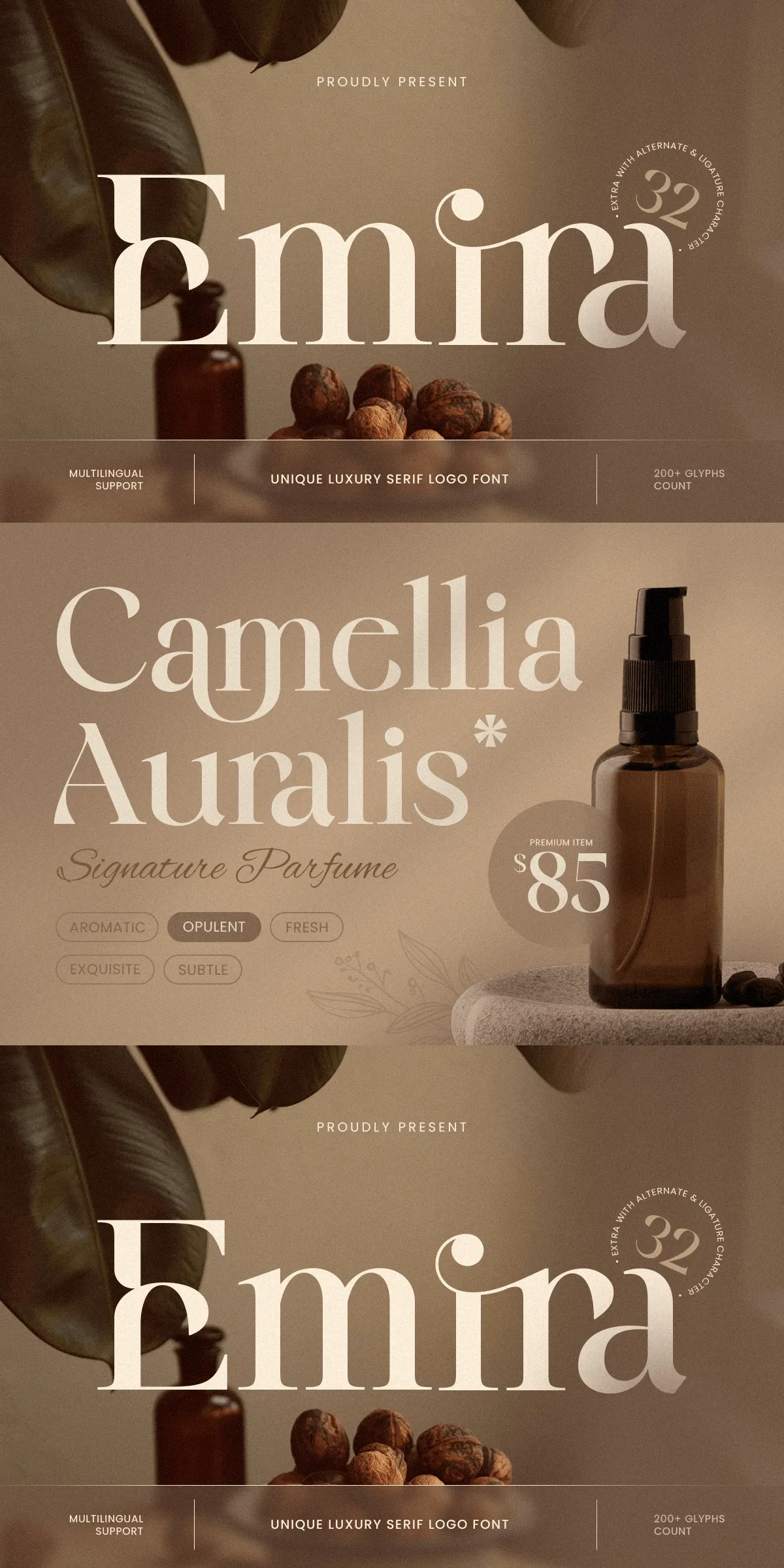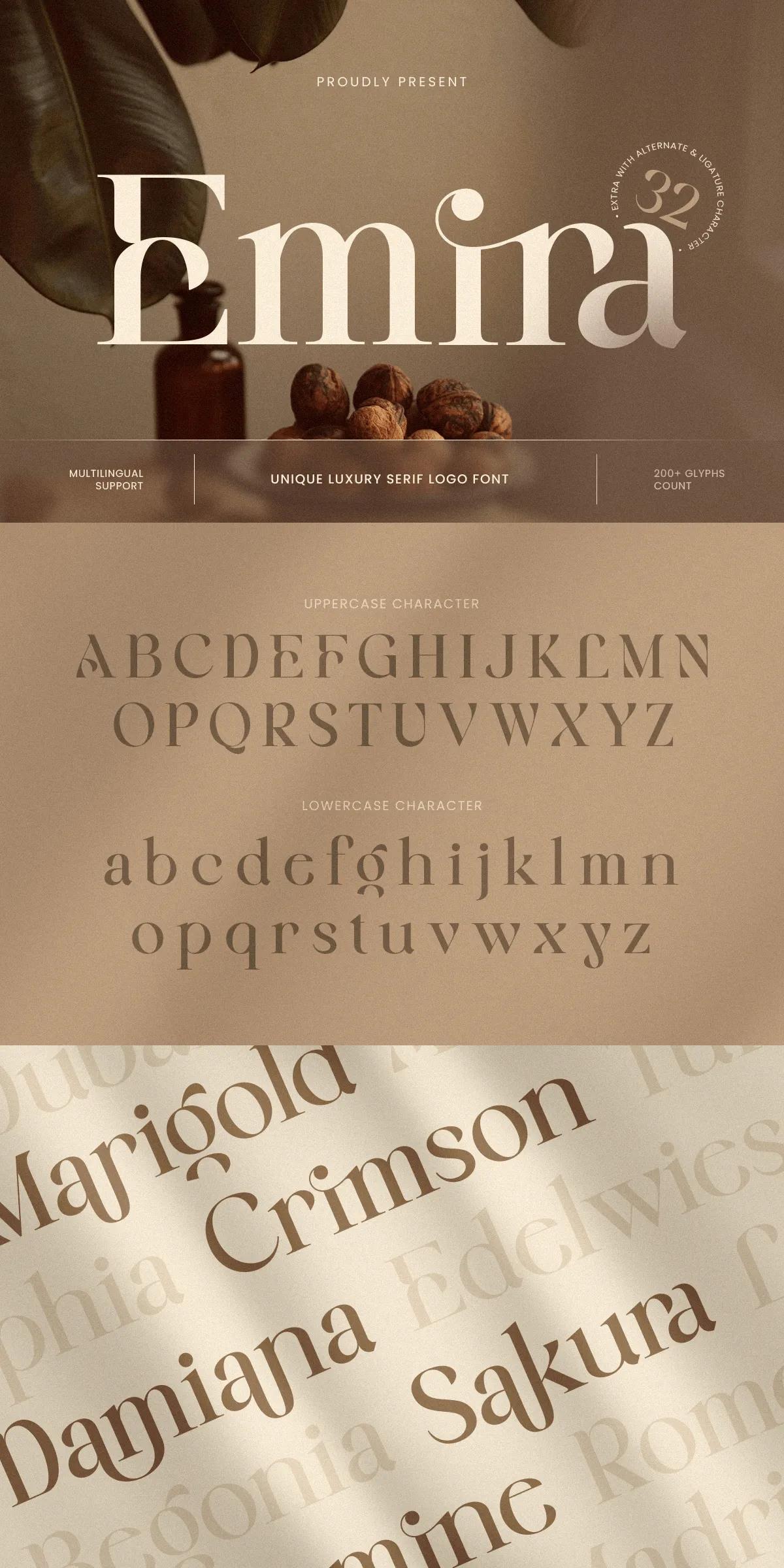
Emira delivers refined sophistication and a distinct premium character that elevates brands immediately. This luxury serif logo font combines elegant serif details, balanced proportions, and confident visual rhythm to produce a typographic voice that reads polished and purposeful. Emira performs at the intersection of modern editorial refinement and classic luxury, enabling designers to create logos, headlines, and packaging that feel curated and memorable. Use Emira to define brand tone, sharpen visual identity systems, and craft wordmarks that anchor premium communications with clarity and style.
Inspiration And Design Intent Behind Emira Typeface
Emira draws inspiration from contemporary luxury branding and refined editorial typography where subtle distinction and structural balance communicate value. The design intent emphasizes graceful curves, measured contrast, and carefully resolved terminals to ensure the face reads beautifully at display sizes. Emira’s personality stems from small, deliberate details—slender counters, sculpted serifs, and harmonized spacing—that together produce a voice both modern and timeless. Designers built Emira specifically to support logo work and high-impact typography, giving every composition an exclusive, recognizable presence while maintaining excellent legibility in both print and digital contexts.
Core Features And Technical Capabilities Included With Emira
- Unique luxury serif letterforms optimized for logo and wordmark design
- Elegant structure with premium visual character and refined contrast
- Strong readability for branding, editorial headlines, and display typography
- Complete character set: uppercase, lowercase, numerals, and punctuation
- OpenType features enabling advanced typesetting and professional workflows
- PUA or OpenType encoding to access alternates, stylistic sets, and special glyphs
Practical Applications And Typical Use Cases For Emira
Emira excels across a spectrum of premium applications. Deploy it as the primary wordmark for fashion labels, beauty and skincare brands, and high-end retail identities. Apply Emira to packaging and labels to communicate craftsmanship and exclusivity on physical products. In editorial settings, Emira delivers authoritative magazine covers, refined headlines, and impactful section opens. For websites and digital marketing, use Emira sparingly for headers and hero wordmarks while combining it with neutral body typefaces to preserve readability and hierarchy. Emira also serves well on invitations, stationery, signage, and presentation assets where a polished, coherent visual voice matters.
Design Recommendations And Pairing Strategies For Stronger Identity
- Pair Emira with a clean sans-serif for body copy to create contrast and maintain legibility.
- Reserve decorative alternates and stylistic sets for logotypes and key headlines to preserve clarity in long passages.
- Use subtle letterspacing and measured tracking for uppercase wordmarks to emphasize refinement.
- Test Emira on coated and uncoated stocks when designing print packaging to evaluate weight and contrast.
- Limit heavy ornamental use in small sizes; allow Emira’s core letterforms to convey luxury clearly.
Multilingual Support And Global Typography Considerations
Emira includes extended multilingual support to accommodate a wide range of Latin-based languages. The font supplies diacritics and punctuation necessary for international branding and broad market reach. Supported languages include Afrikaans, Albanian, Asu, Basque, Bemba, Bena, Breton, Chiga, Cornish, Dutch, English, Estonian, Filipino, Finnish, Friulian, Galician, German, Gusii, Indonesian, Irish, Italian, Kabuverdianu, Kalenjin, Kinyarwanda, Luo, Luxembourgish, Luyia, Machame, Makhuwa-Meetto, Makonde, Malagasy, Manx, Morisyen, North Ndebele, Nyankole, Oromo, Portuguese, Quechua, Romansh, Rombo, Rundi, Rwa, Samburu, Sango, Sangu, Scottish Gaelic, Sena, Shambala, Shona, Soga, Somali, Spanish, Swahili, Swedish, Swiss, and additional language support as required. Verify language coverage for your target markets and test typographic rendering in production environments.